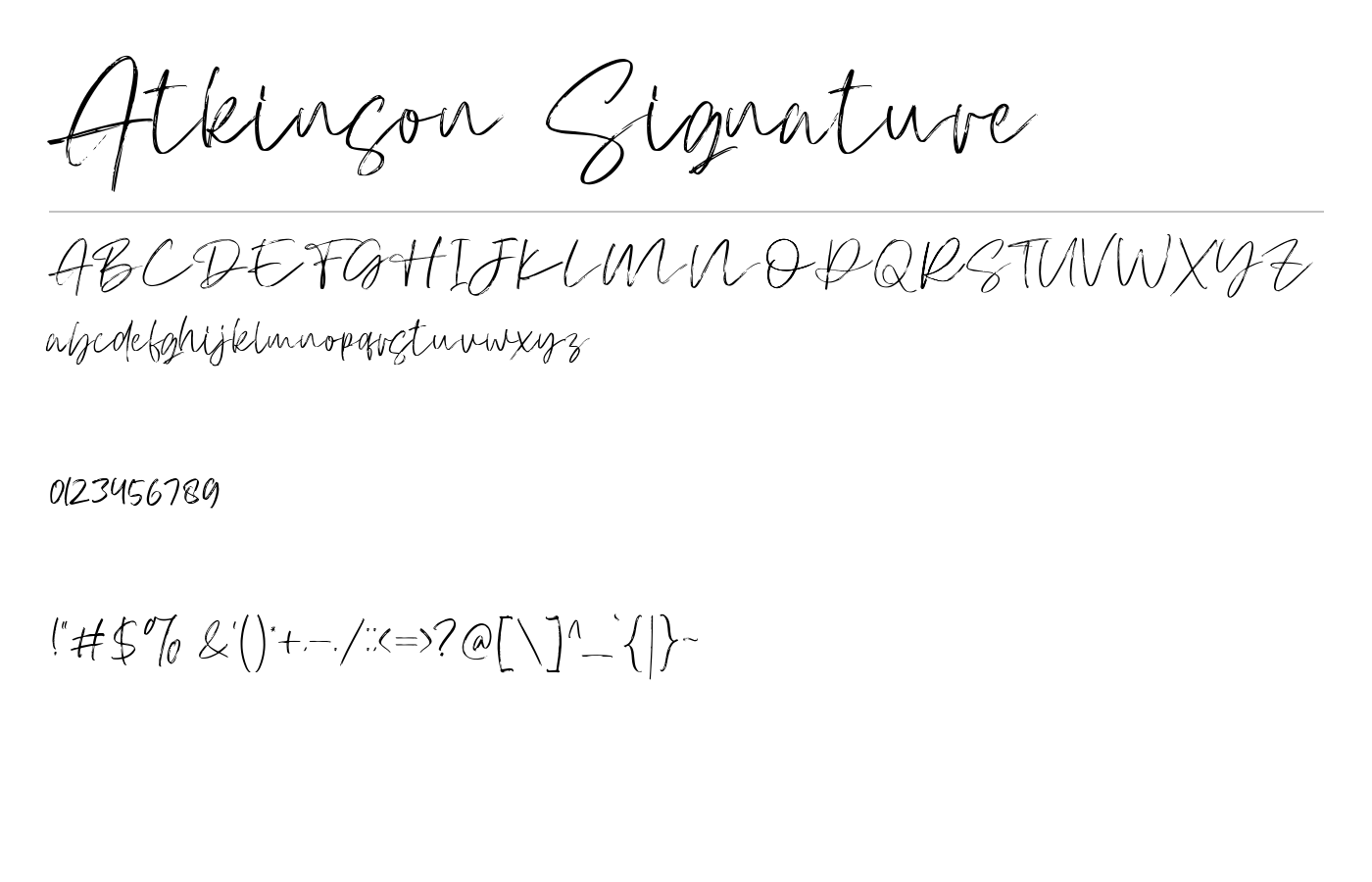
Atkinson Signature is a delicate, handwritten script font that exudes a personal and elegant touch with its thin, textured strokes and natural flow. Ideal for branding, invitations, and lifestyle projects, it adds a sophisticated yet approachable feel that works beautifully in designs seeking a modern, artisanal vibe.
Atkinson Signature Font
About Atkinson Signature Font
| Font family | Atkinson Signature Font |
| Designer | vztype ( Randi Ilhamsyah ) |